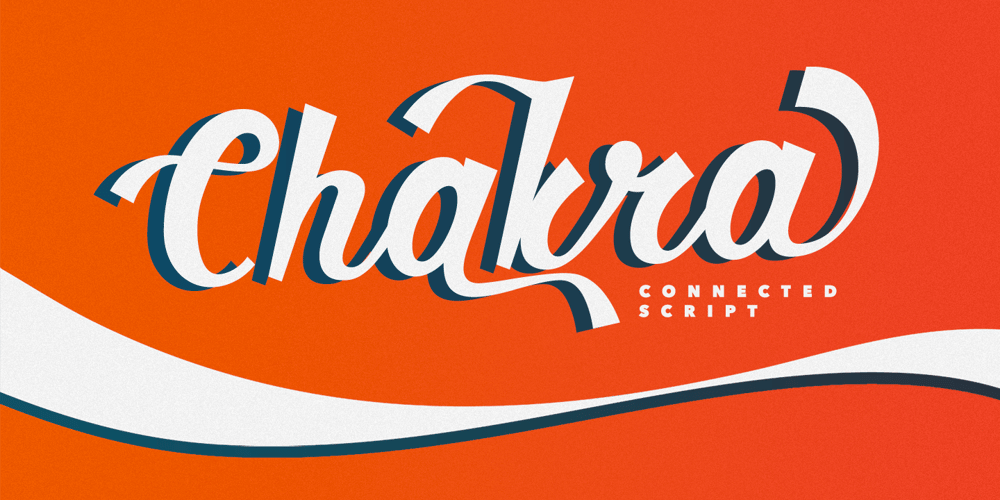
Chakra Font Family was designed by Alex Etewut and published by Etewut. Chakra contains 7 styles and family package options. Chakra is connected script. The family includes 7 styles. There are 3 characters with swashes for basic latin. It also has multi language support (æ, ß, ç, and more).